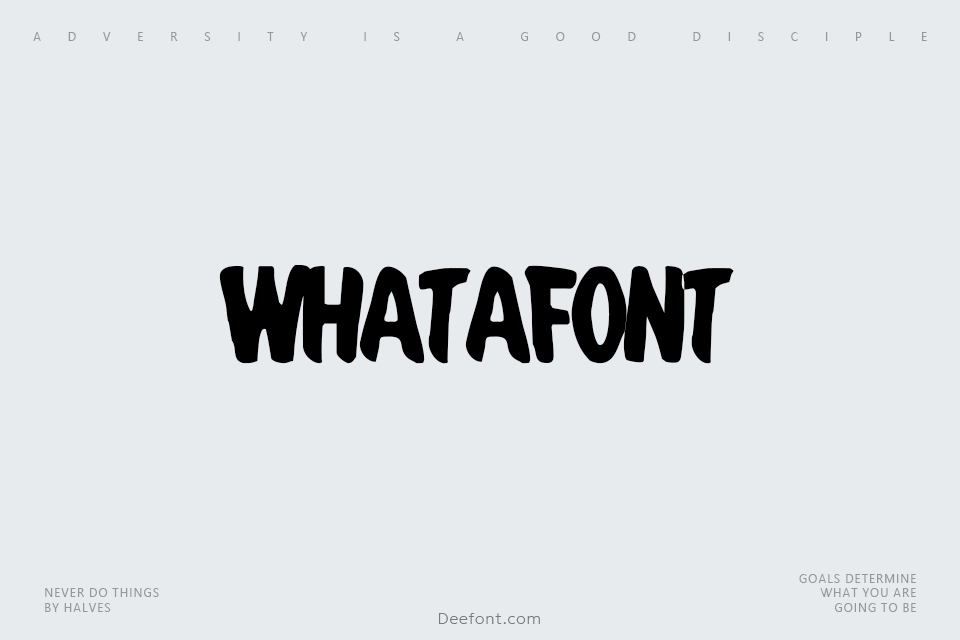
Whatafont Font
Whatafont is a bold, playful display font with thick, rounded characters and a charming hand-drawn appearance. Featuring an informal and energetic style characterized by irregular shapes and slightly uneven lines, this comic typeface is ideal for children’s books, creative branding, posters, and fun design projects that require personality and approachability.